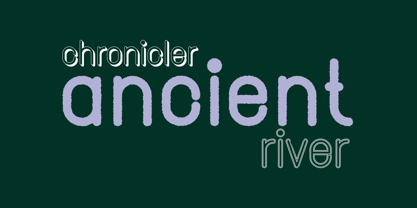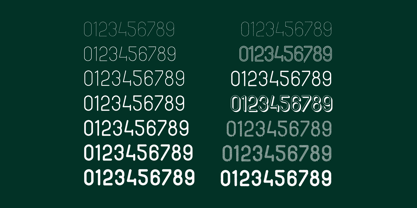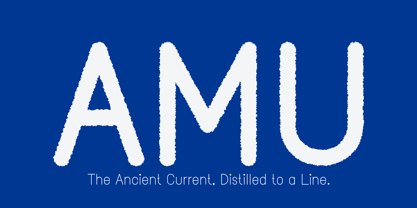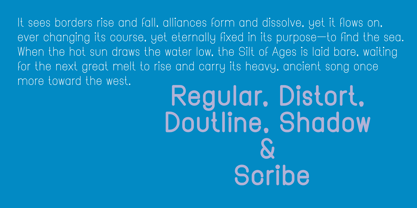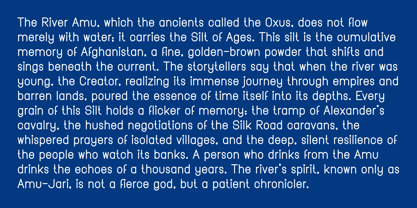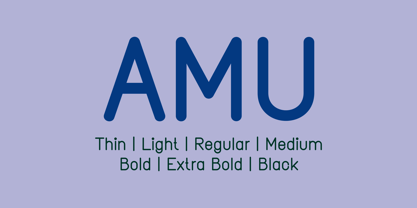
Amu
by Kufic Studio
The Amu Font Family was designed by Ahsan Ahmedzai and published by Kufic Studio. Amu contains 70 styles and family package options. More about this family
Inspired by the powerful, yet minimal path of its namesake, Amu is a versatile sans-serif typeface designed to embody enduring clarity and contemporary flow. Its minimal structure reflects the river's unadorned line across the landscape, making it ideal for sleek, modern applications where readability is paramount. The comprehensive family offers seven distinct weights—Thin, Light, Regular, Medium, Bold, Extra Bold, and Black—providing a gradient of strength from delicate whisper to absolute declaration. Further enhancing its utility are the five stylistic variants: the clean foundational Regular style, the striking Double Outline for display use, the experimental Distort for artistic headlines, the classic, grounding Shadow variant, and the expressive, free-form Scribble style, allowing the typeface to transition effortlessly from a professional identity system to a vibrant creative statement.